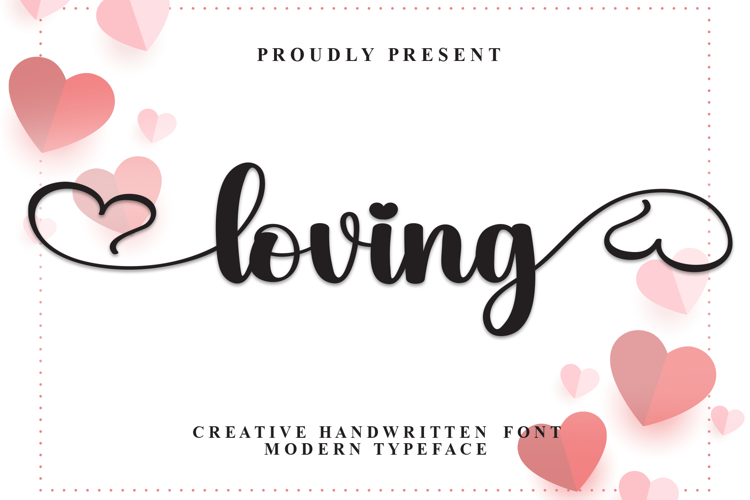
Loving Hearty - A Beauty Script Fonts
Introducing New Font : Loving Hearty - A Beauty Script Fonts
Loving Hearty - A Beauty Script Fonts will work perfectly for fashion, e-commerce brands, trend blogs, wedding boutiques or any business that wants to appear upscale and chic.
Loving Hearty - A Beauty Script Fonts also Suitable for Logo, greeting cards, quotes, posters, branding, name card, stationary, design title, blog header, art quote, typography, art, modern envelope lettering or book design, happening style like handdrawn design or watercolor design theme, craft design, any DIY project, book title, or any purpose to make your art/design project look pretty and trendy.